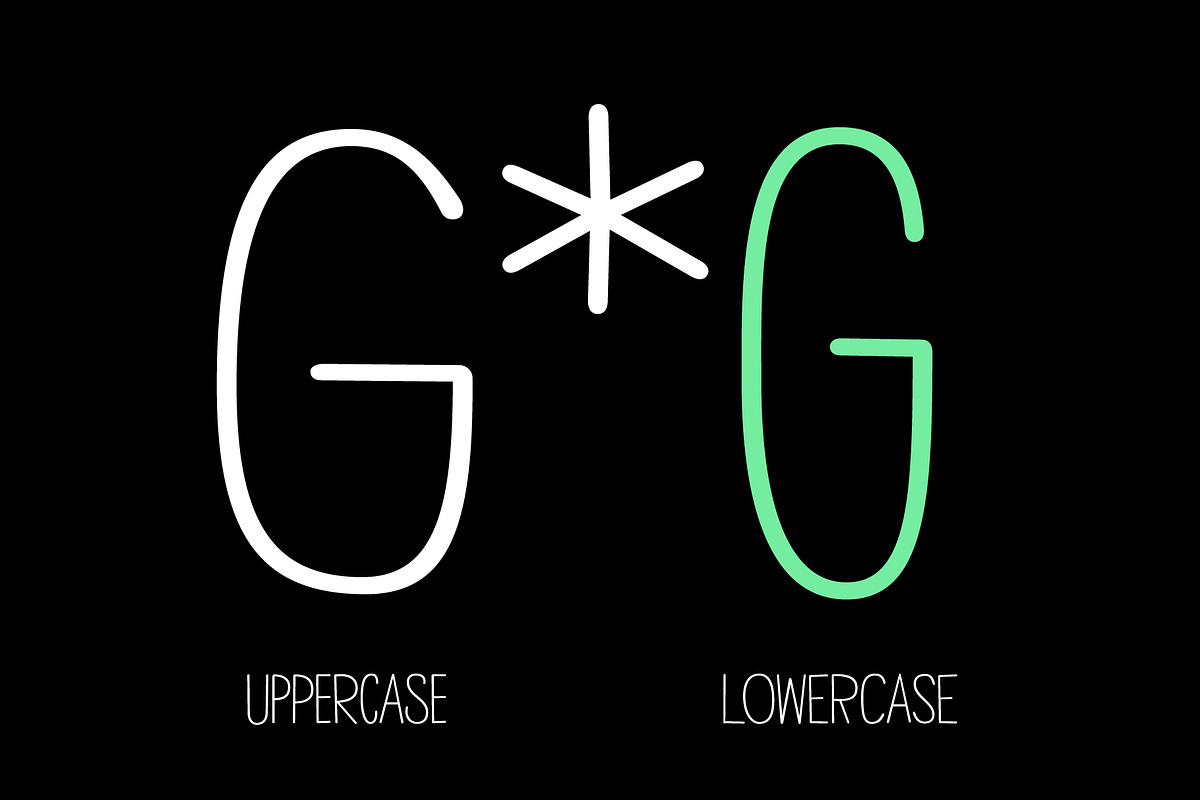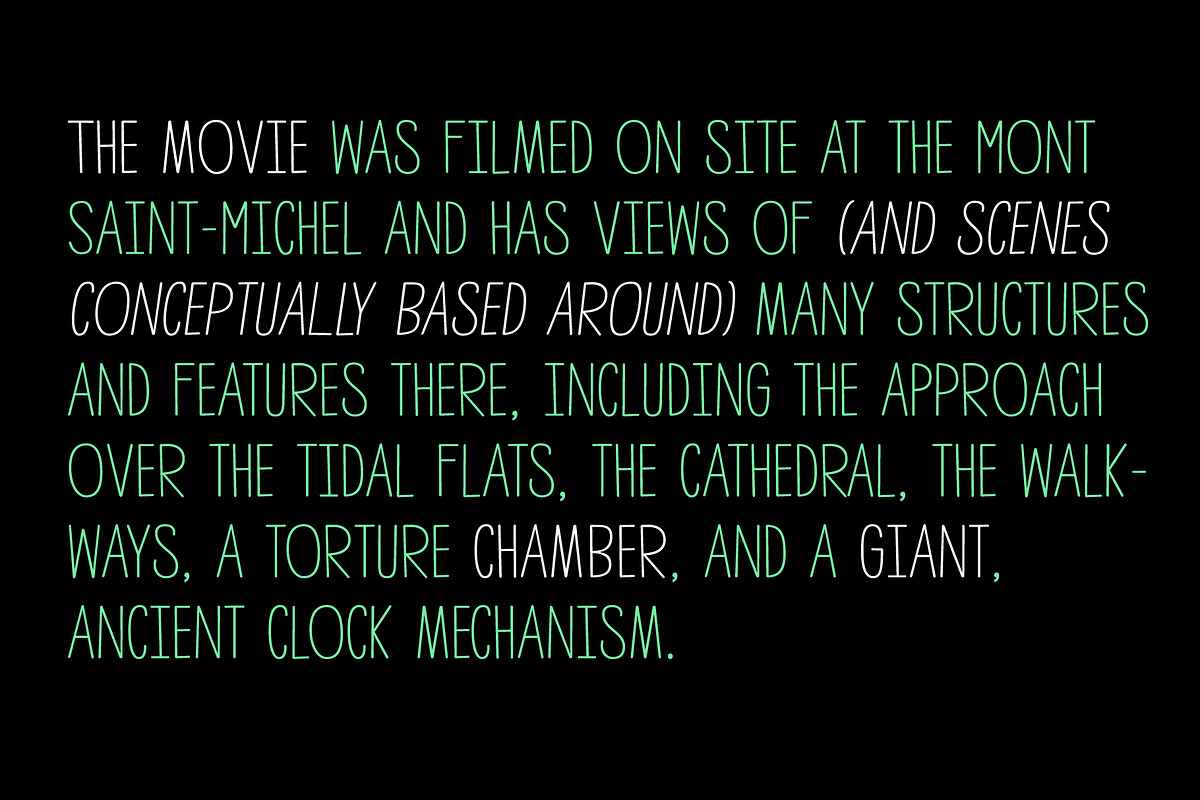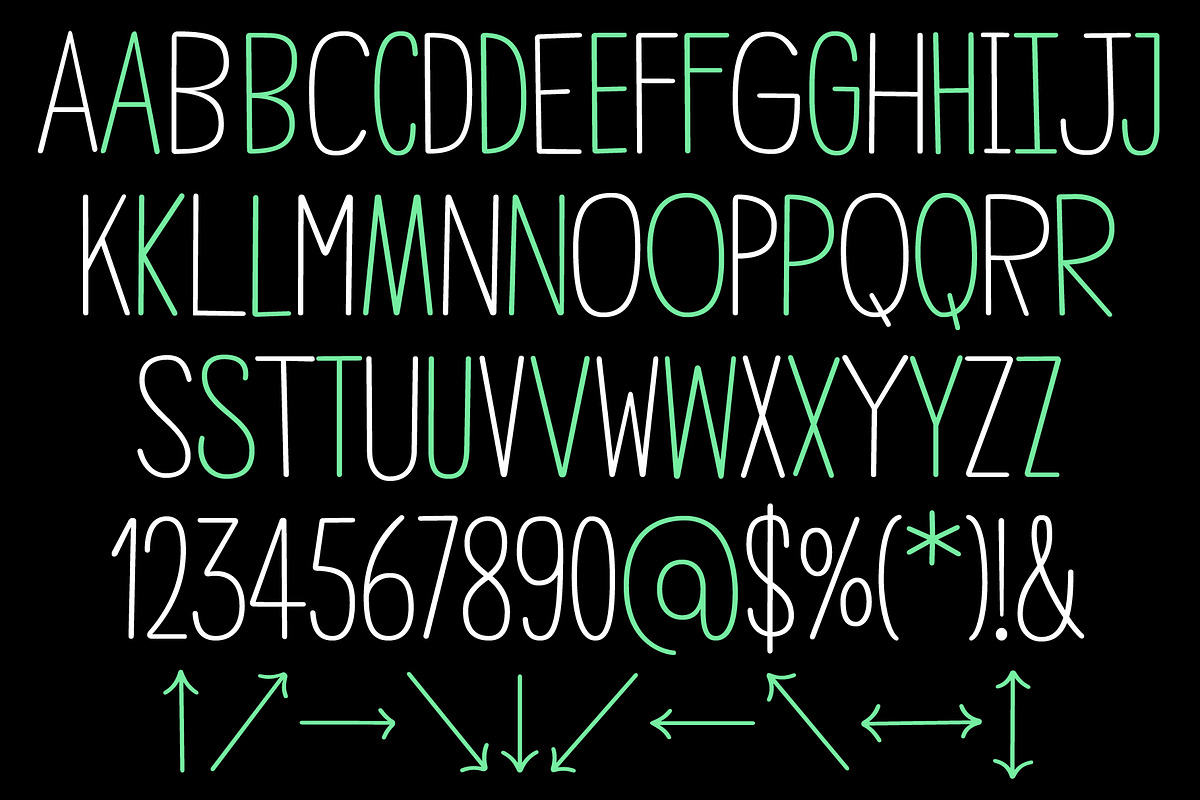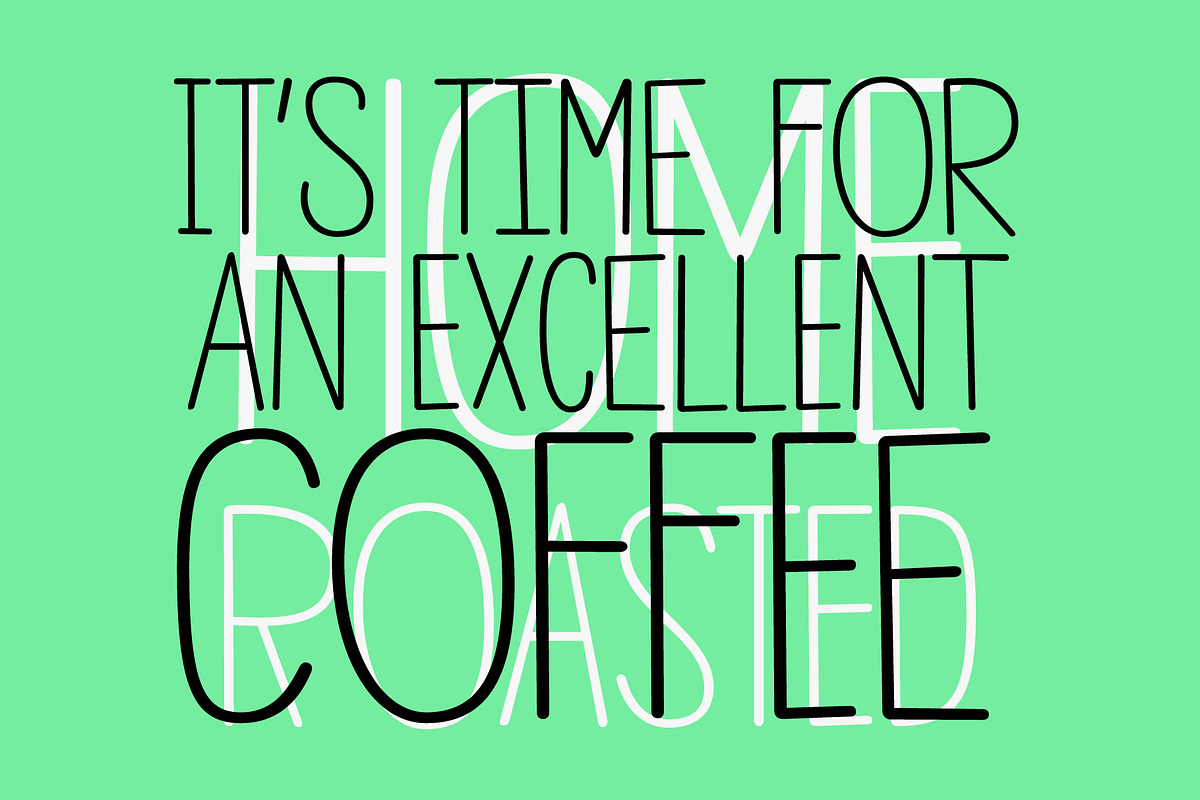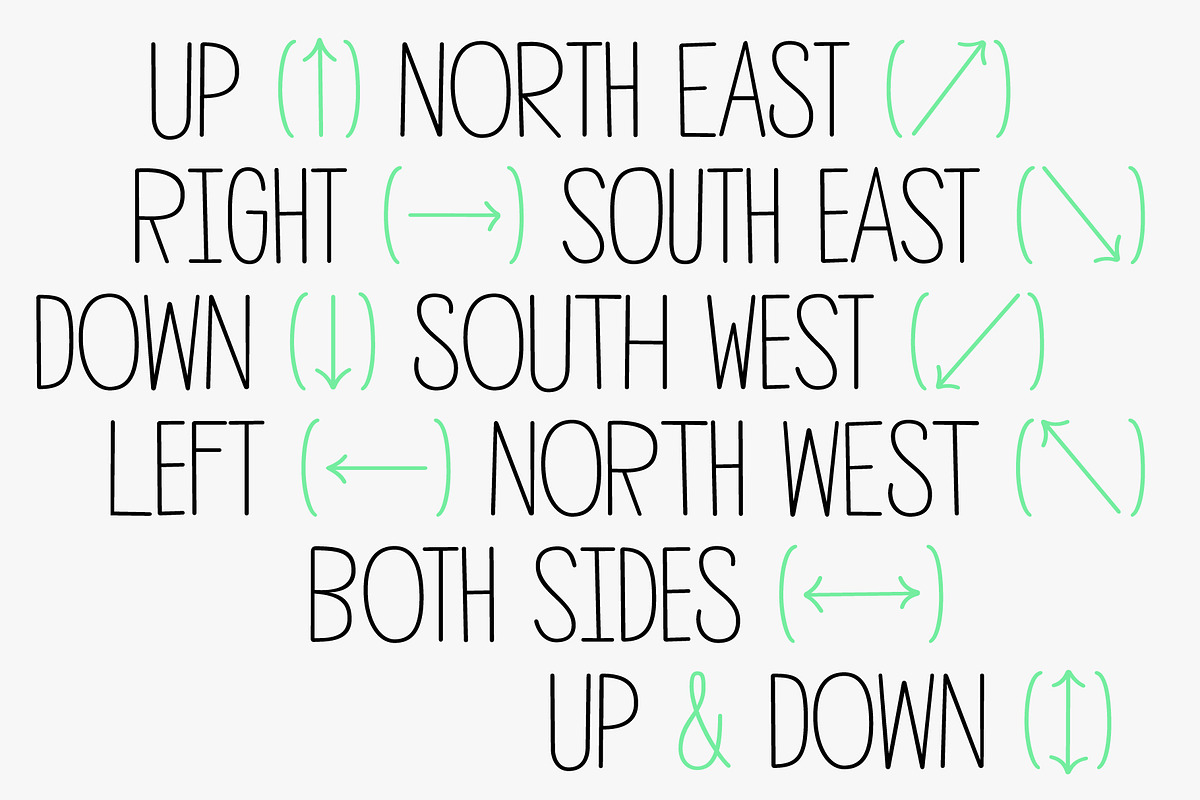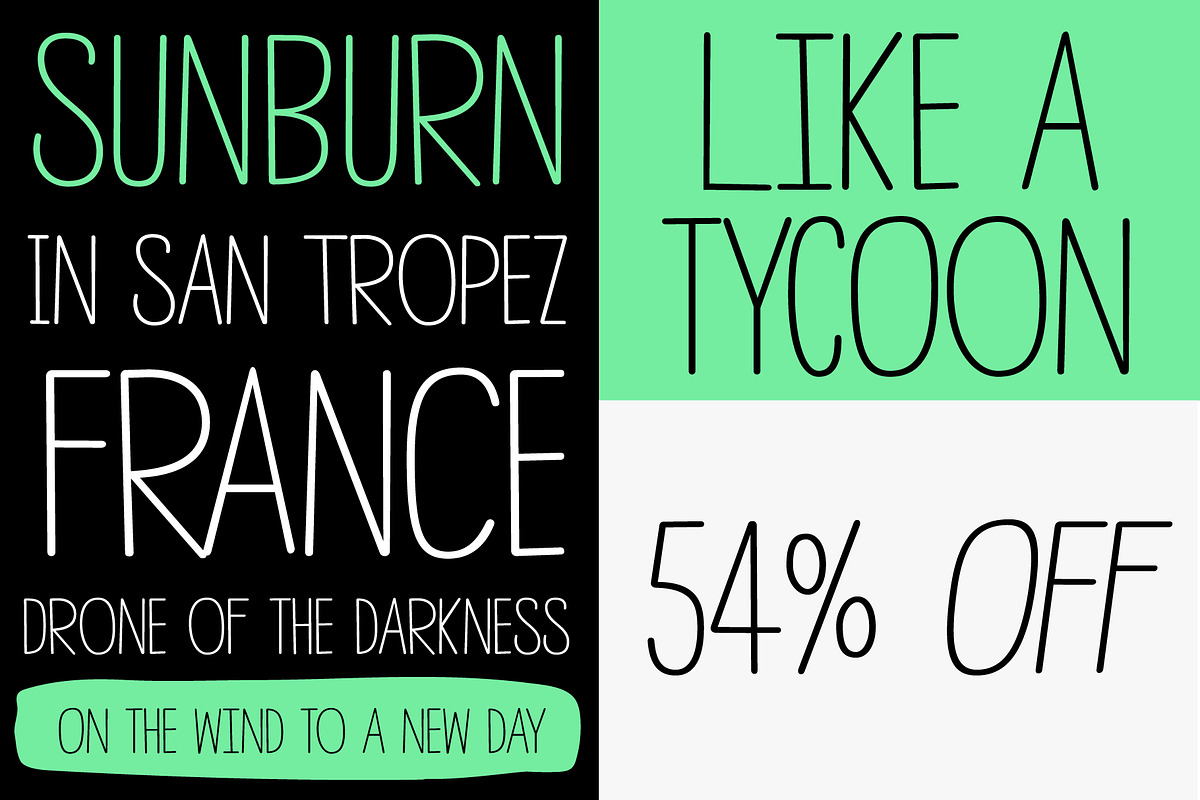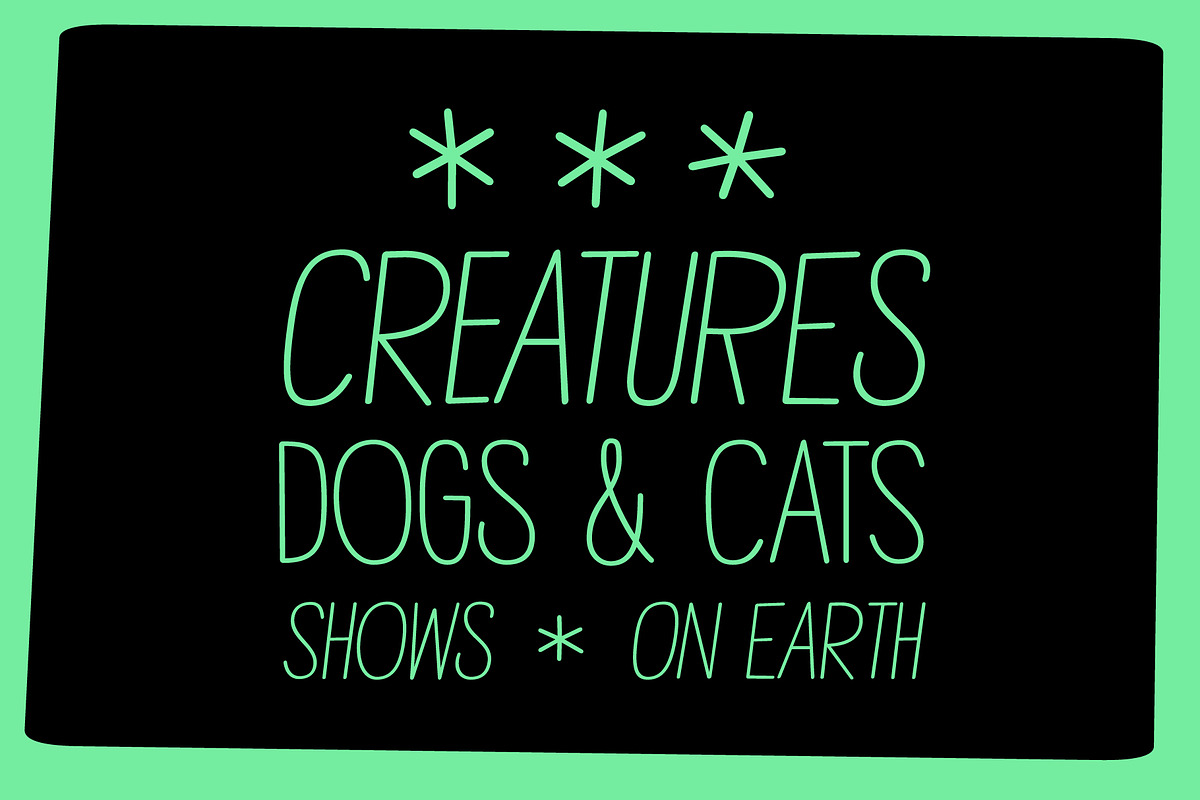
TOMO Mindwalk
TOMO Minkwalk is a casual but legible hand-made font. A tall, single weight, all-caps typeface with lots of language support.
Why TOMO Mindwalk is worth a look
TOMO Mindwalk by TOMO Fonts fits naturally into Branding, posters, packaging, typography.